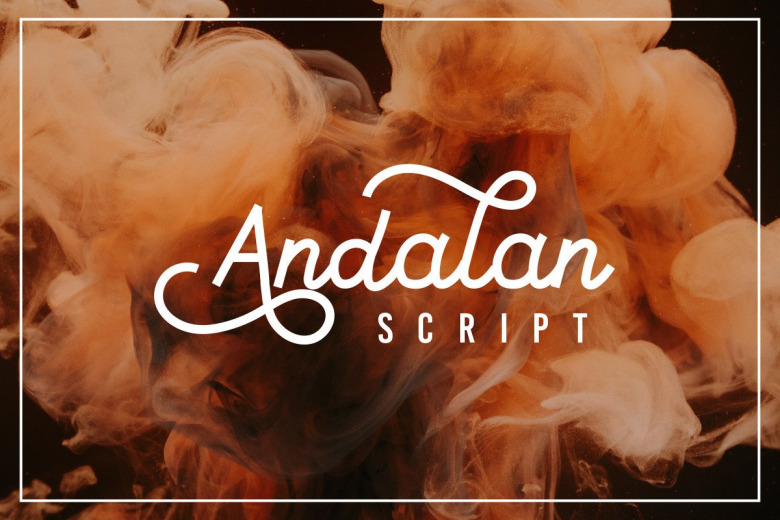
Andalan Font
This is an elegant monoline script typeface created by h2designs with a contemporary atmosphere and impeccable form, inspired by timeless classic calligraphy. Not too thin and not too thick, balanced and varied, this font was designed to enhance the beauty of your projects.